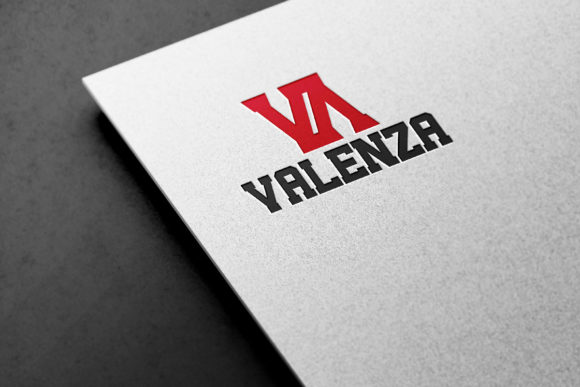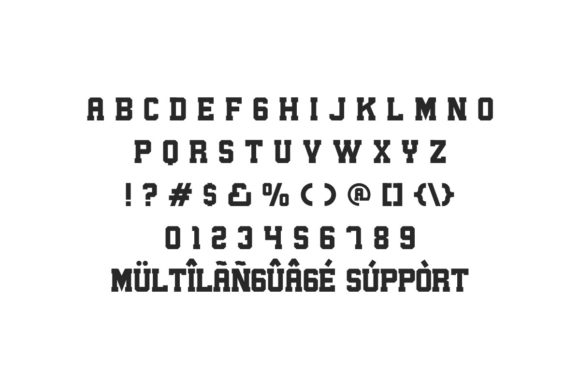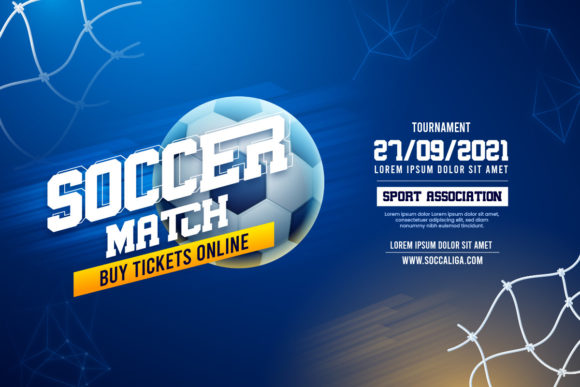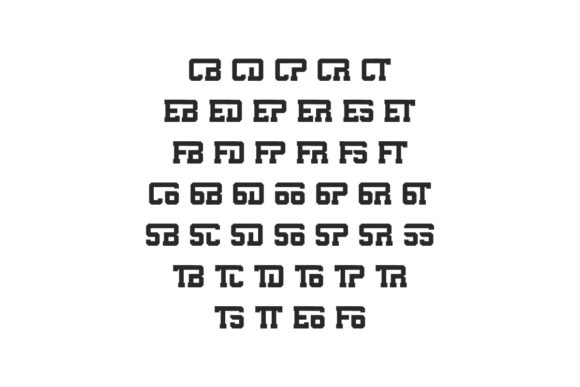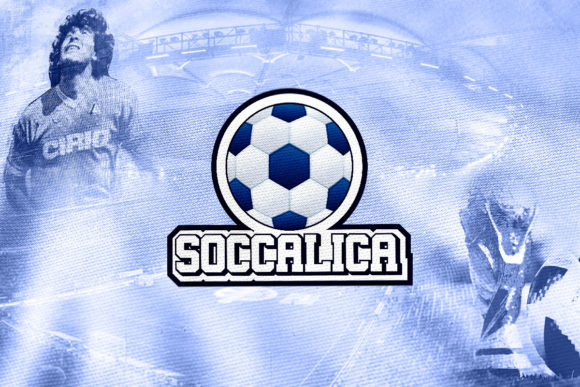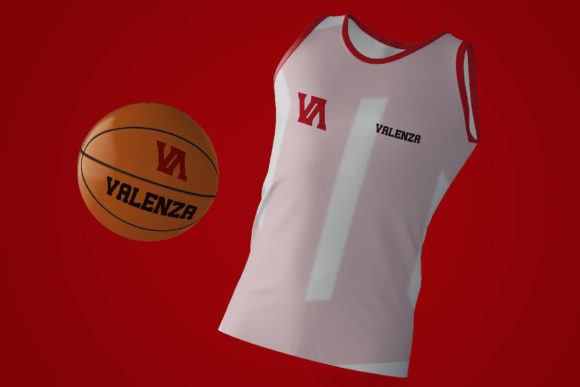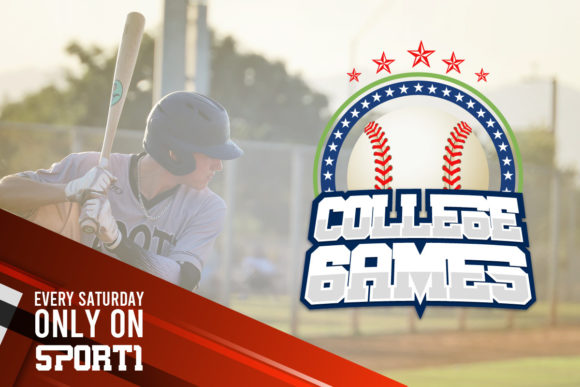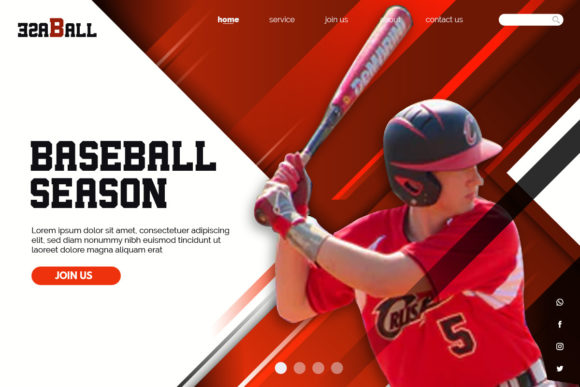
College Games
College Games: A Bold and Sporty Slab Serif Font
College Games is a bold, thick-lettered, and sporty slab serif font. This font is PUA encoded, which means you can access all of the glyphs and swashes with ease. Its robust design makes it perfect for projects that require a strong and dynamic typographic presence.
Key Features of College Games
• Bold Design: Offers a strong and confident look suitable for impactful headlines.
• Slab Serif Structure: Features thick, rectangular serifs typical of slab serif fonts.
• Sporty Appearance: Ideal for sports-related designs due to its dynamic style.
• PUA Encoded: Allows easy access to all glyphs and swashes for enhanced design flexibility.
Ideal Uses for College Games
College Games’ unique characteristics make it particularly well-suited for:
When incorporating College Games into your designs, consider these tips:
• Use for headlines or short blocks of text to showcase its bold style.
• Utilize its sporty appearance across various creative projects to enhance visual appeal.
College Games is an excellent choice for designers looking to add a bold slab serif font to their typographic toolkit. Its ability to bring strength and style to various design projects makes it stand out in the world of typography. Whether you’re working on sports branding, creating layouts for magazines, or developing content that requires a touch of dynamism, College Games offers the perfect blend of style and functionality.
Furthermore, College Games’ unique design allows it to shine in various contexts. From vintage-inspired designs with a modern twist to more contemporary layouts that need a touch of uniqueness, this font can elevate your projects. Its striking yet functional style works particularly well in designs that require a thoughtful and engaging mood.
In conclusion, College Games is a font that truly captures the essence of creativity and impact in typography. Its ability to work well in both minimalist projects and more elaborate layouts showcases its flexibility. For those looking to add a touch of unique charm to their work, College Games can even enhance themed creations with its distinctive style. It’s the perfect choice for designers seeking to make a strong, stylish impact across a wide range of creative projects.